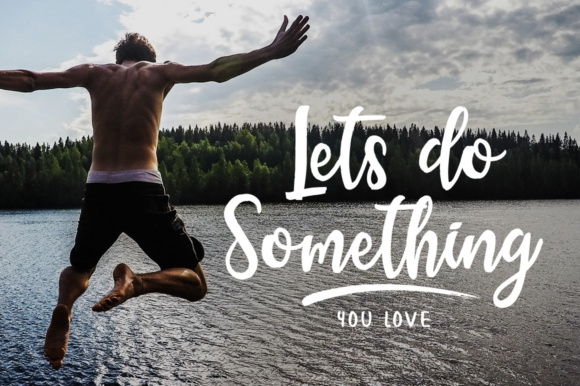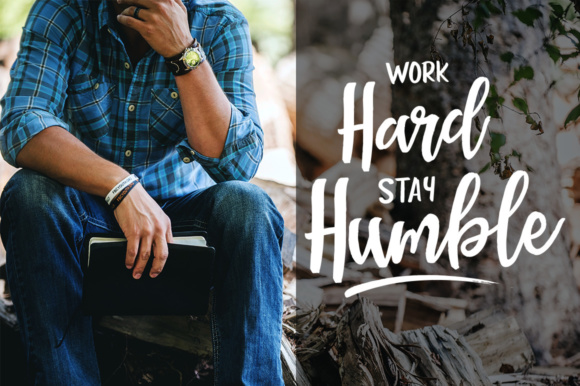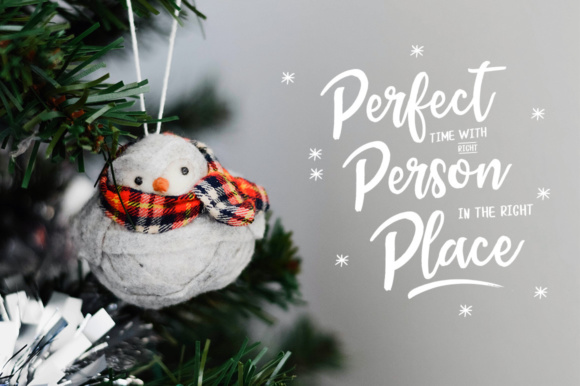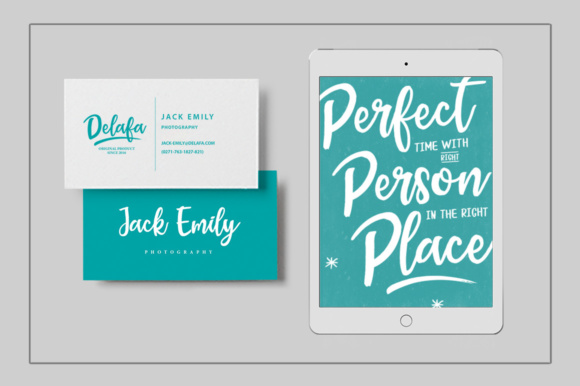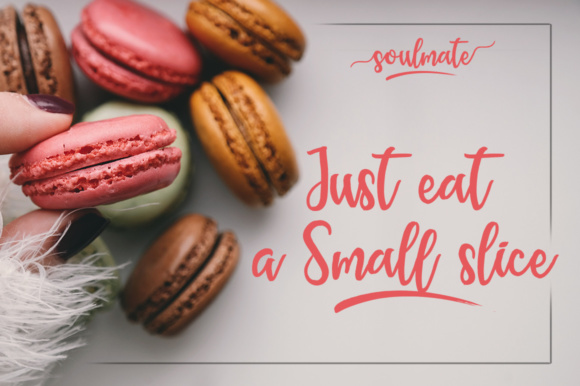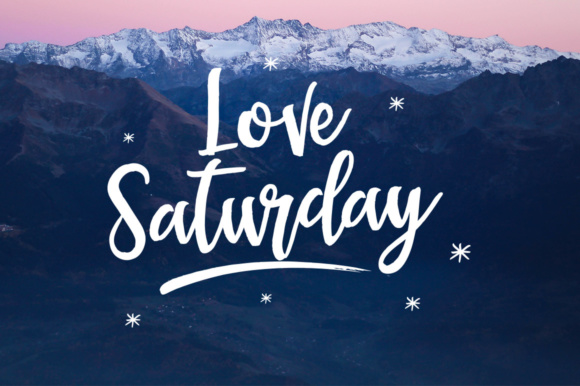
Soulmate Font
About Soulmate Font
Soulmate is a beautiful, hand-brushed font that works well in modern projects that carry a hipster vibe. This font is ideal for branding or packaging, and is has a very natural look to it so you can guarantee that your work always looks original and stylish.